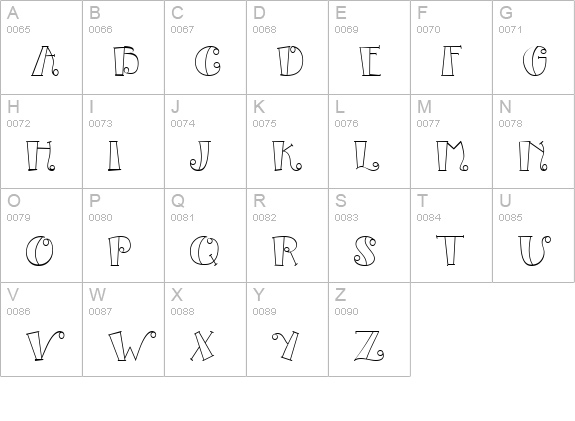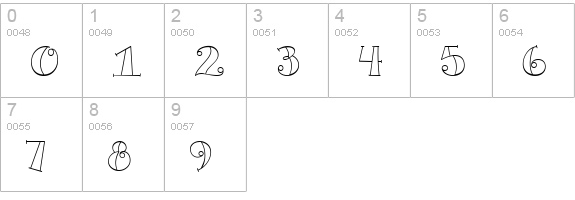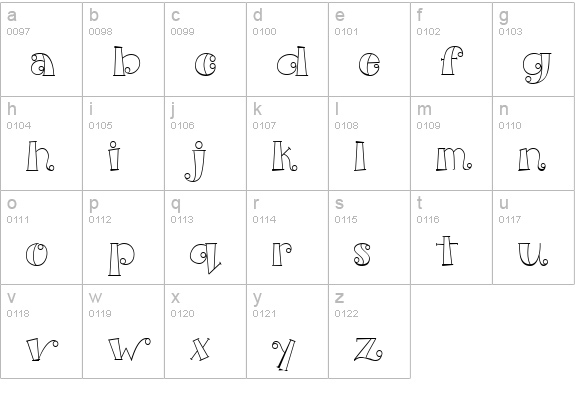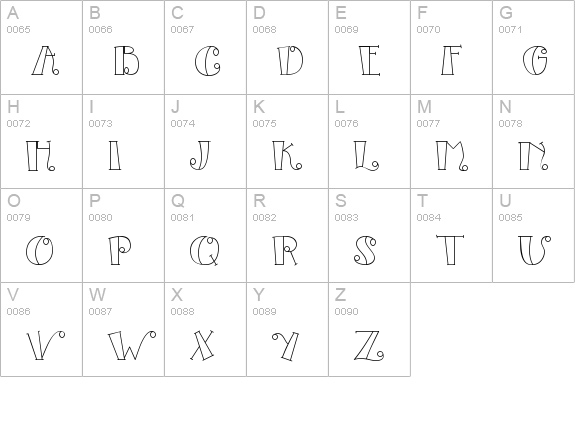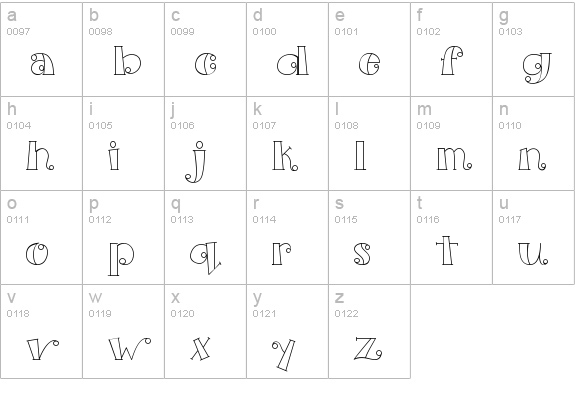
CK Gala Font Details
Introducing CK Gala font, a stunningly elegant typeface that exudes sophistication and charm. With its delicate curves and stylish flourishes, CK Gala is perfect for adding a touch of class to your design projects. Whether you're creating invitations, branding materials, or editorial designs, this versatile font is sure to make a statement. What sets CK Gala apart is not only its timeless beauty but also the fact that it is available for free download at FontsMarket.com. Yes, you read that right - you can elevate your designs with this exquisite font without spending a dime. So why wait? Head over to FontsMarket.com now and add CK Gala to your font collection today!